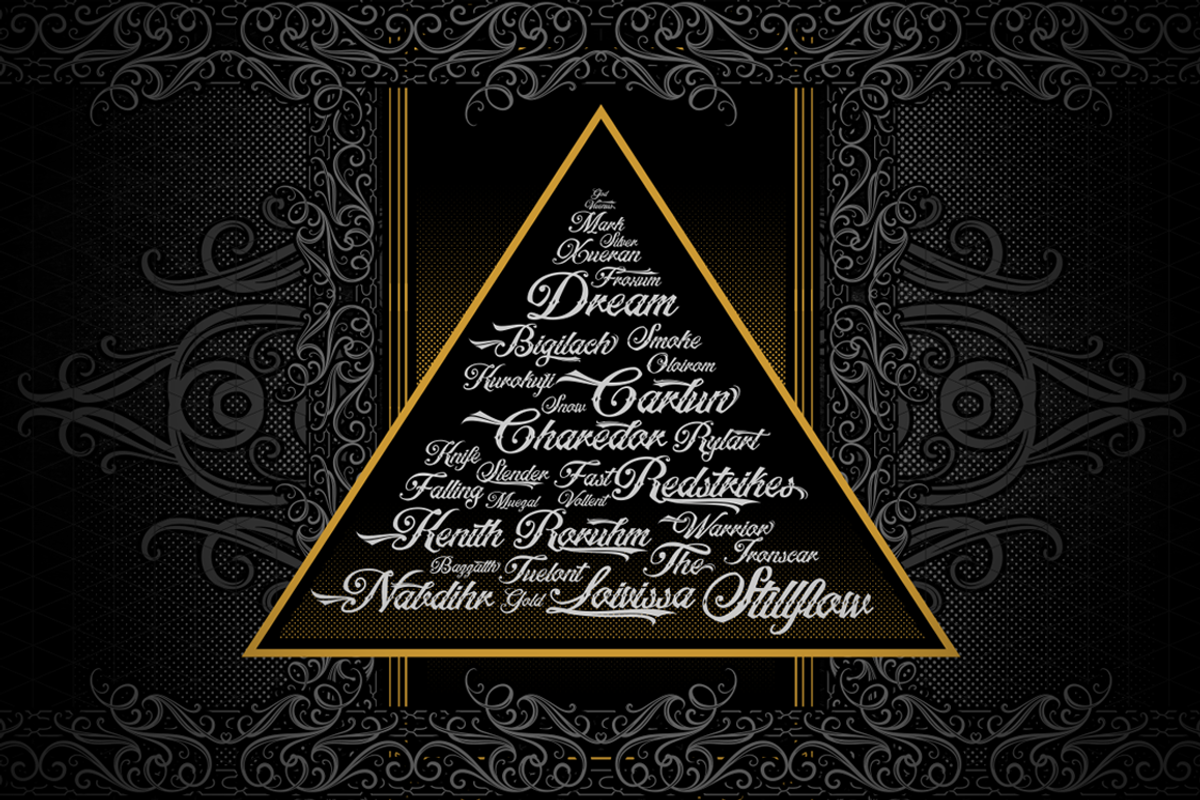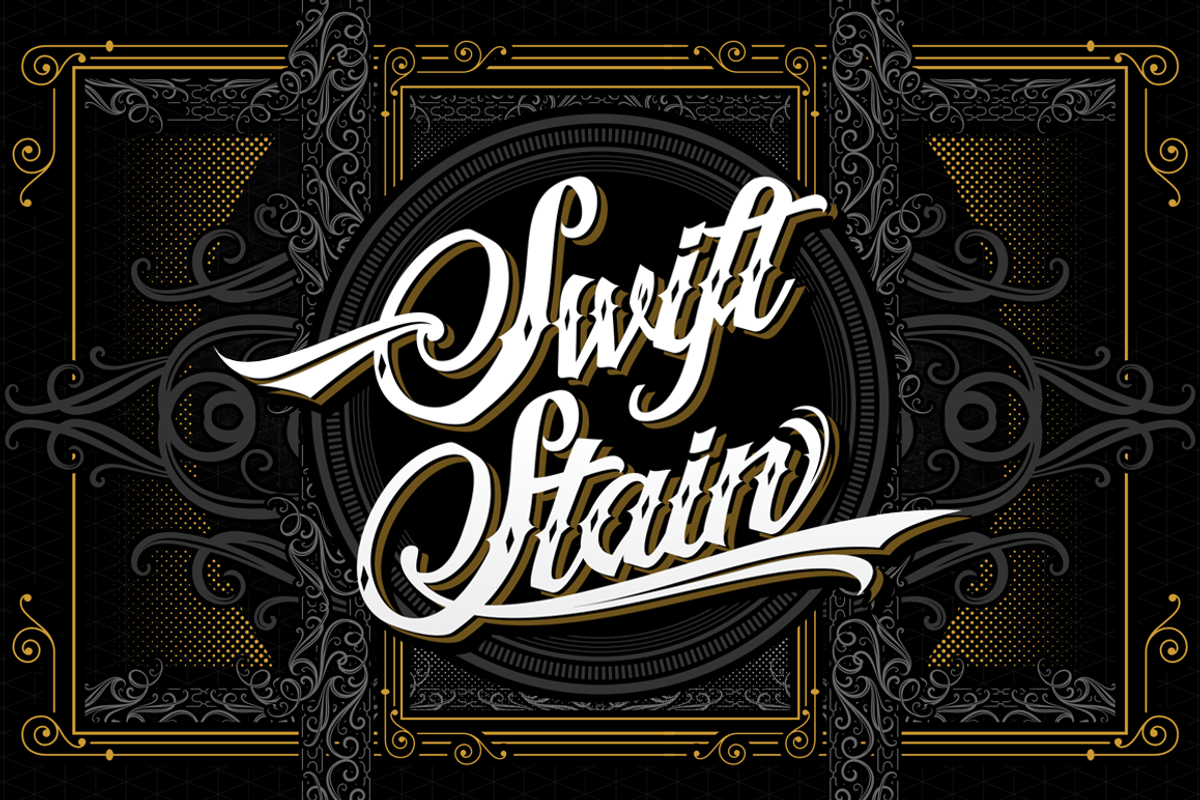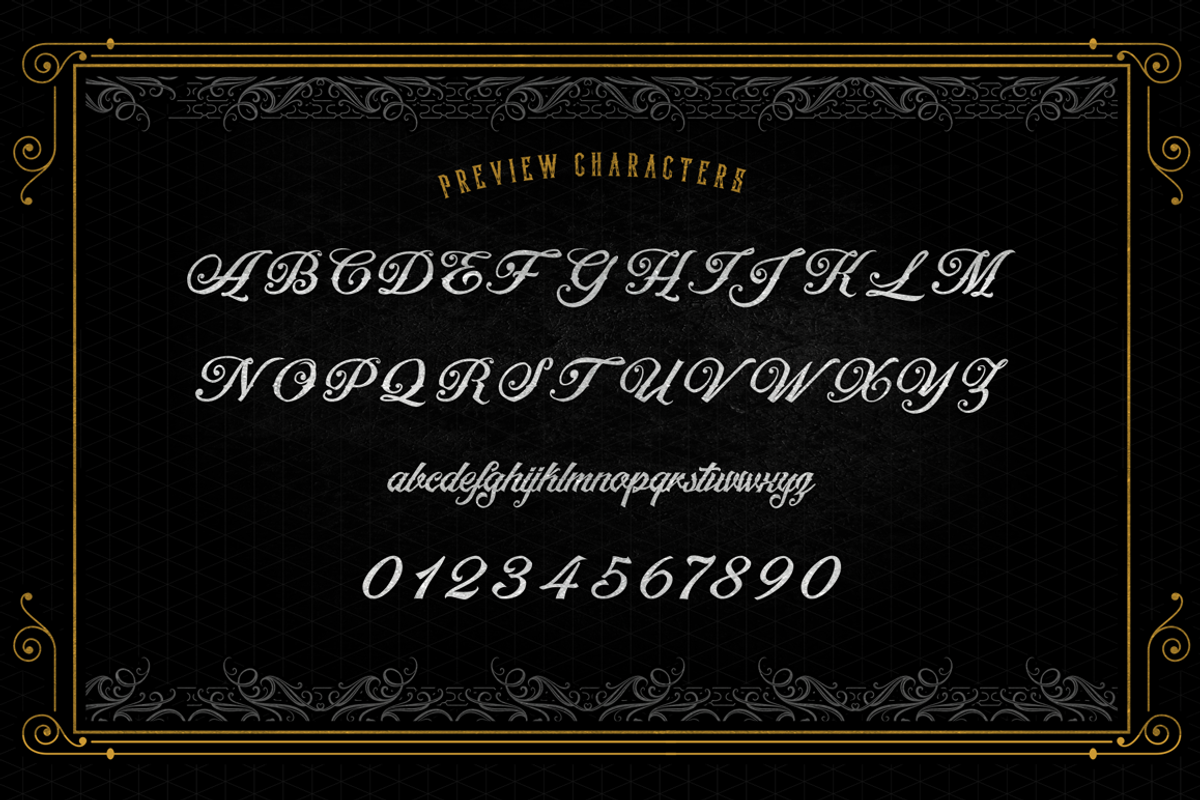
Artonic typeface +Bonus Pack
Artonic typeface +Bonus Pack by seventhimperium is a font selected for branding, posters, packaging, typography.
- Of course Artonic comes Multiple language support with variety of ligatures, swash, and alternates characters uppercase and lowercase forms,
Why Artonic typeface +Bonus Pack is worth a look
Artonic typeface +Bonus Pack by seventhimperium fits naturally into Branding, posters, packaging, typography.